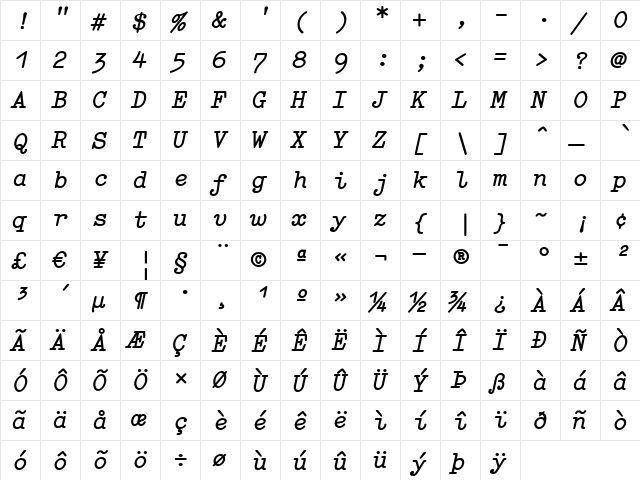
Elementa ItalicBold Font Preview
Elementa ItalicBold
Design Context for Elementa Typeface
Elementa offers clean, dependable letterforms without strong stylistic allegiance, making it a practical choice for designers who need flexibility. Its italic angle brings a sense of urgency and motion to the letterforms. Its bold stroke weight gives it real presence on the page.